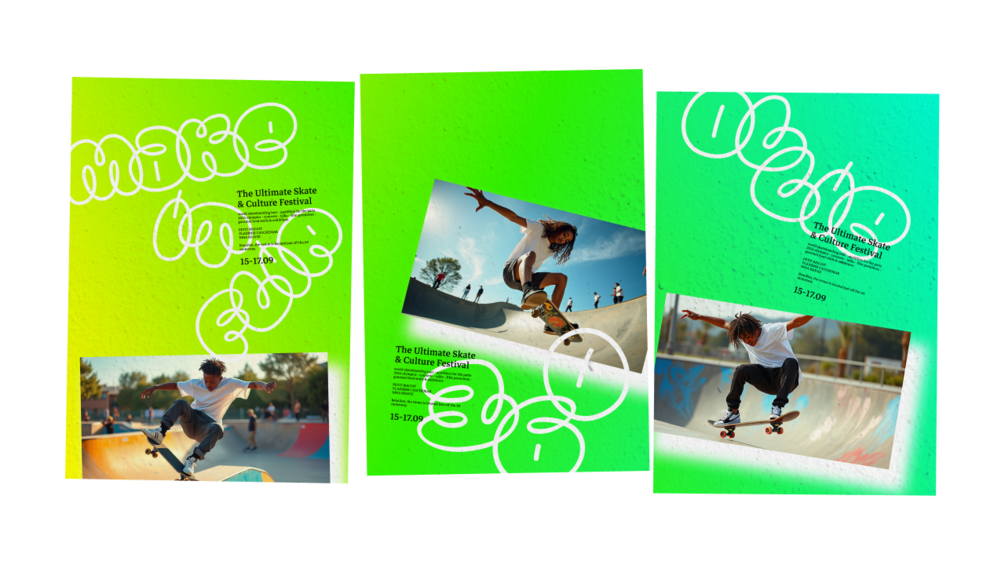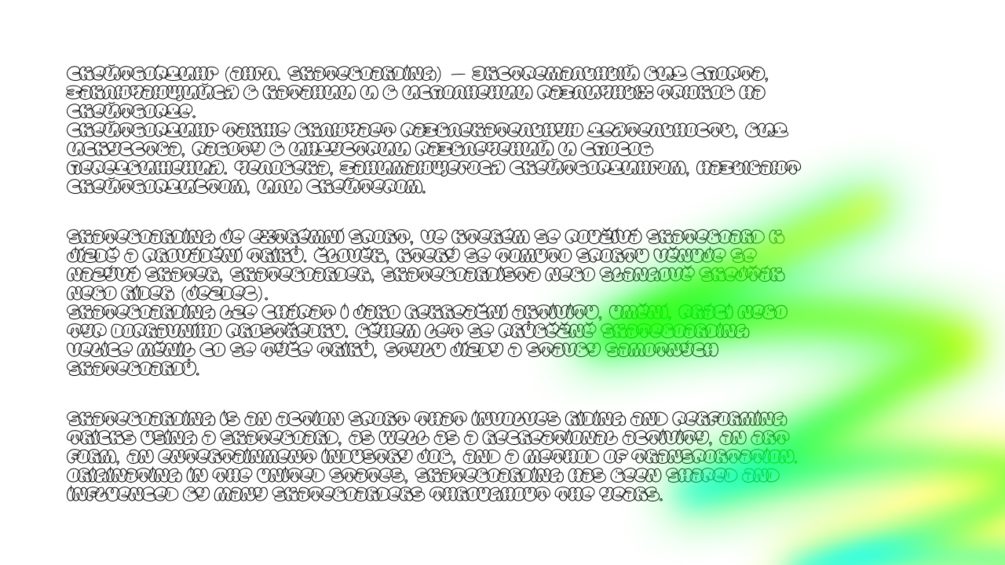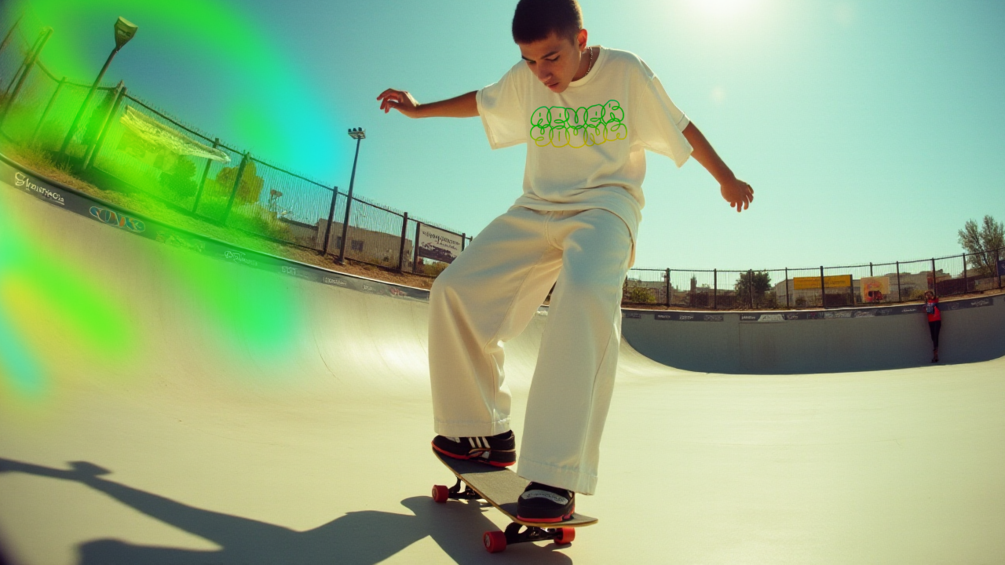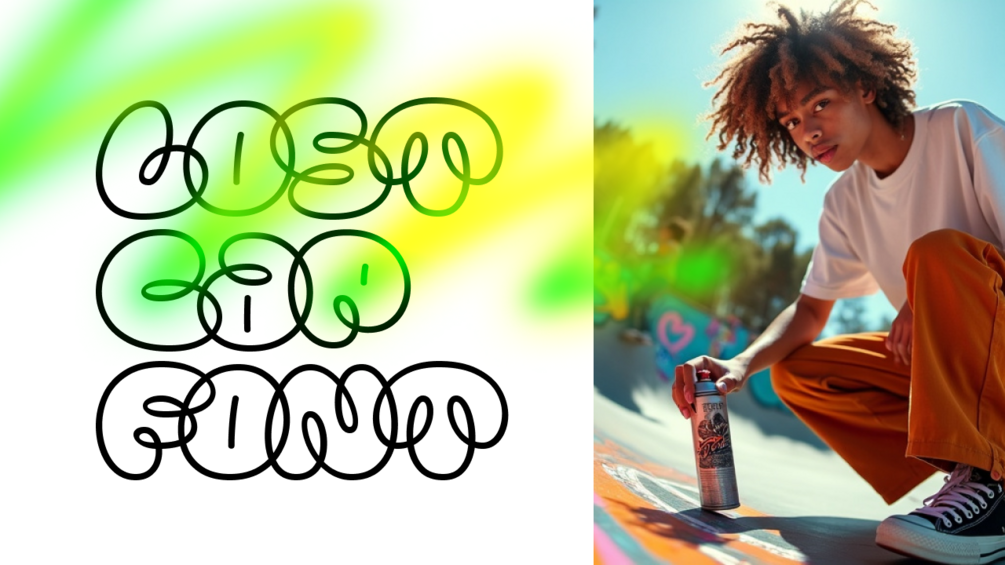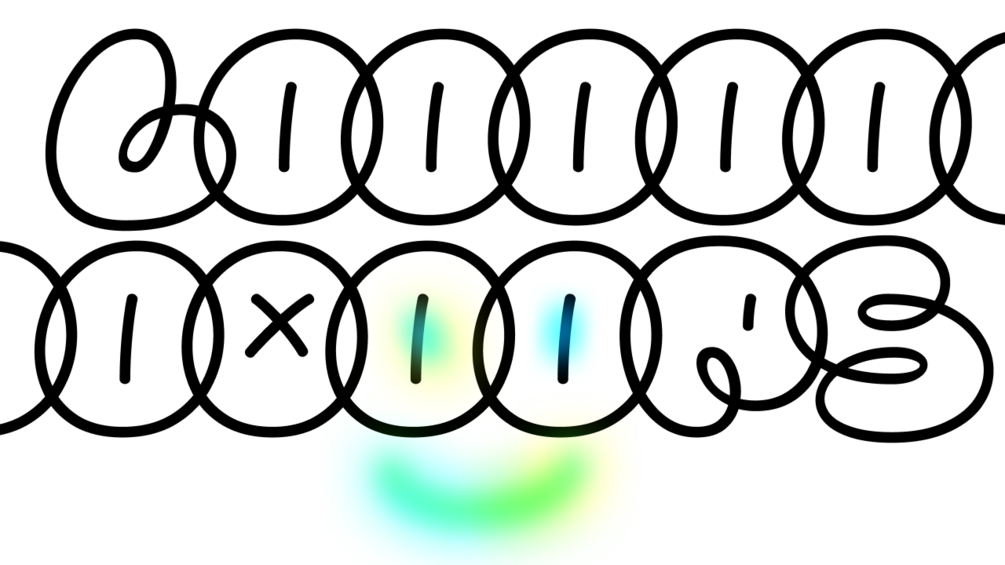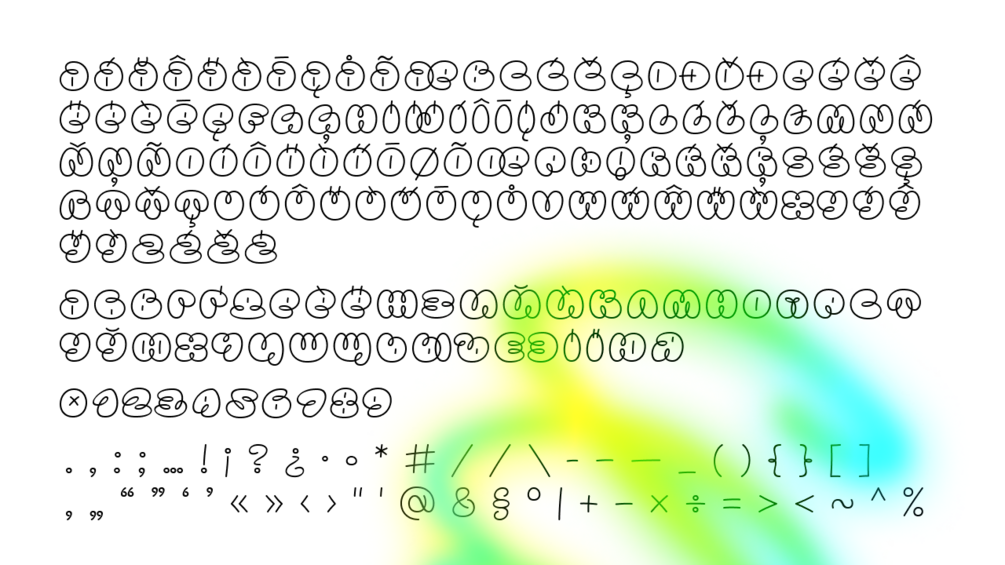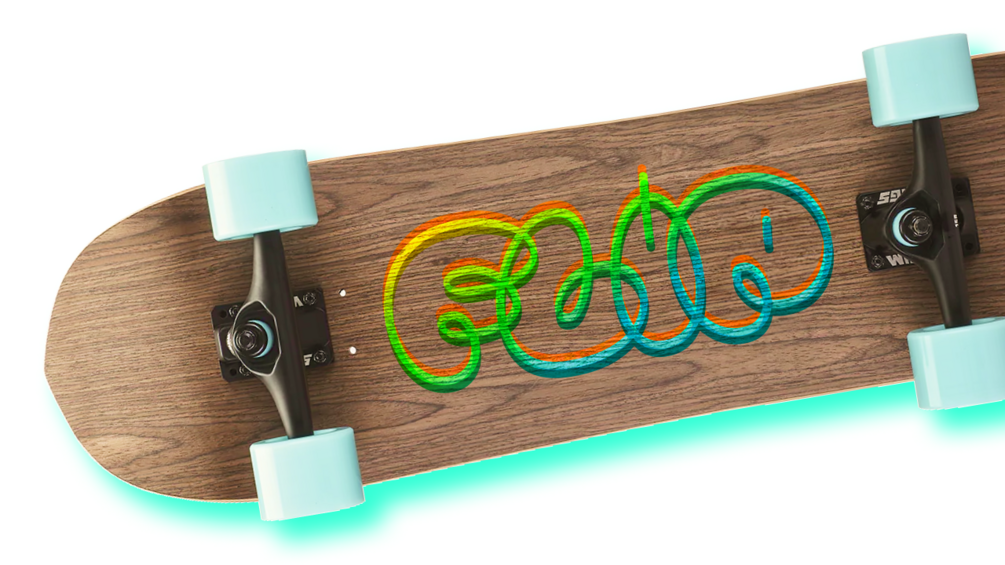
Lost Cap font
Display font inspired by graffiti tags. Latin (Basic, Western and Central European) and Cyrillic (Basic, Belarusian, Russian, Ukrainian) glyphs are included.